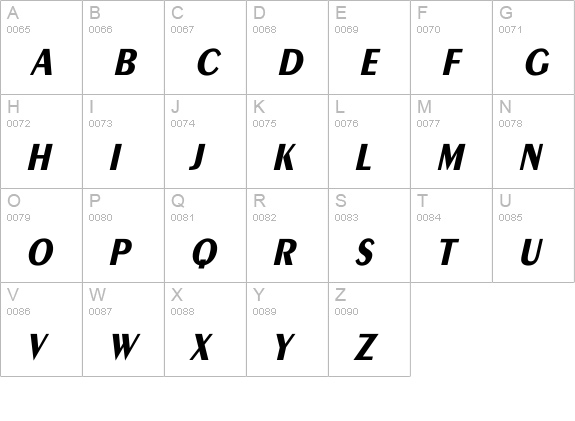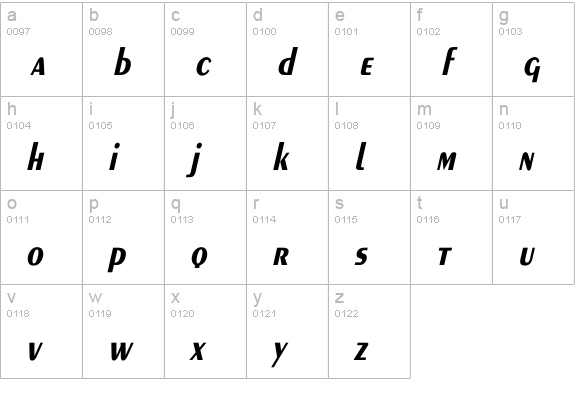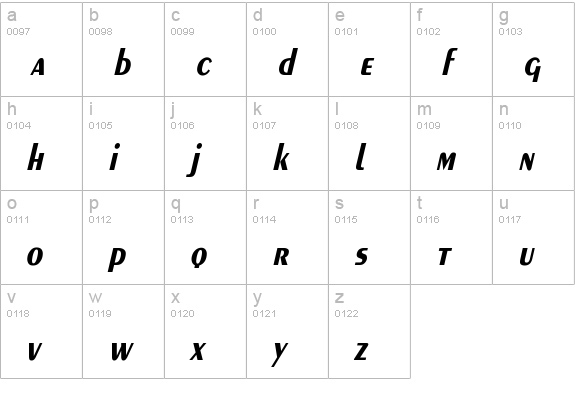
Exotic-Bold Th Italic Font Details
Exotic-Bold Th Italic is a strong, high-contrast, italic variant in the Exotic typeface family \xE2\x80\x94 well suited to headlines, attention-grabbing titles, and strong calls-to-action.
Introducing Exotic-Bold Th Italic, a striking and unique typeface that effortlessly combines exotic flair with bold elegance. This font is perfect for making a statement and adding a touch of sophistication to your designs. The italicized version adds a dynamic and stylish twist, making it ideal for headlines, logos, and branding projects. What makes Exotic-Bold Th Italic even more appealing is that it is available for free download at FontsMarket.com. Now you can easily access this eye-catching font and incorporate it into your creative projects without any cost. Don't miss out on the opportunity to enhance your designs with this stunning typeface that is both exotic and bold. Download Exotic-Bold Th Italic today and take your designs to the next level!